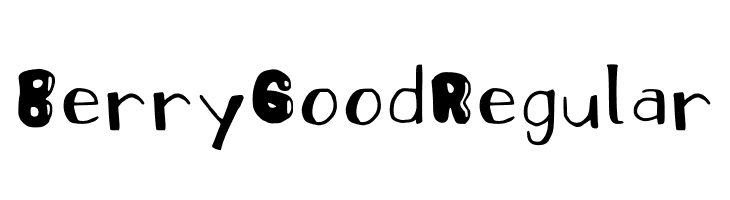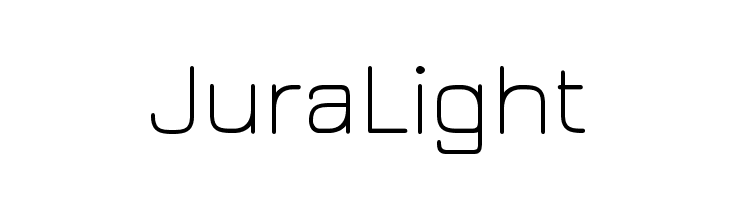
A modern, clean sans-serif font with uniform strokes and rounded edges.
A bold, italic font with a dynamic and condensed style.
A bold, playful font with rounded edges and a slightly condensed style.
A bold, playful font with a cartoonish, three-dimensional style.
A bold, playful handwritten font with thick strokes and a casual feel.
A bold, modern sans-serif font with geometric lines and uniform thickness.
A futuristic, bold, and expanded font with angular, geometric characters.